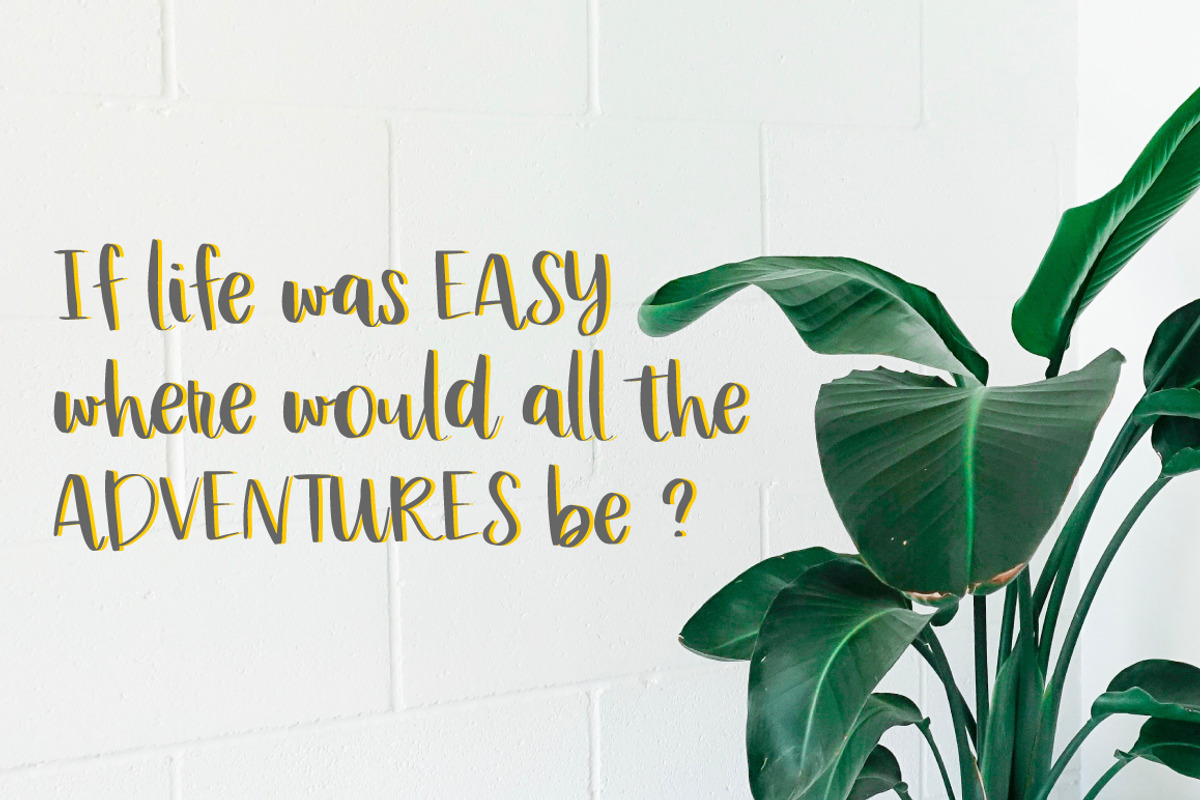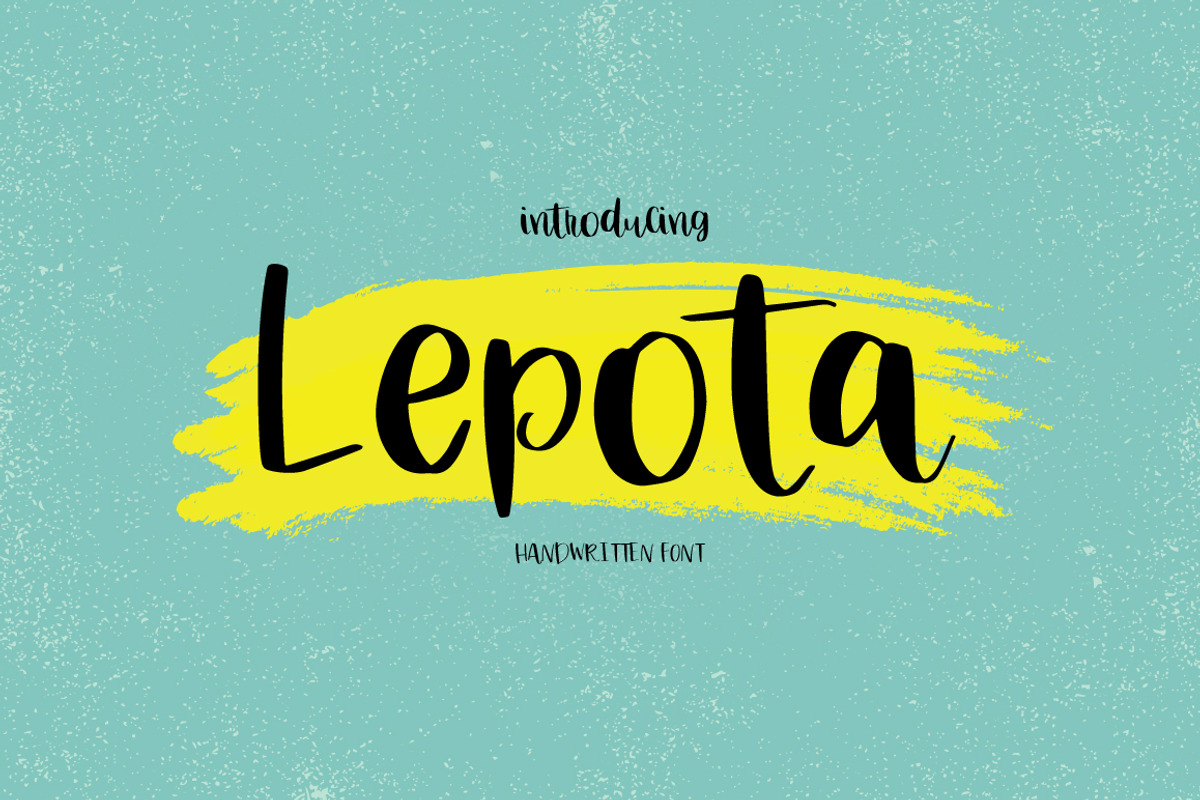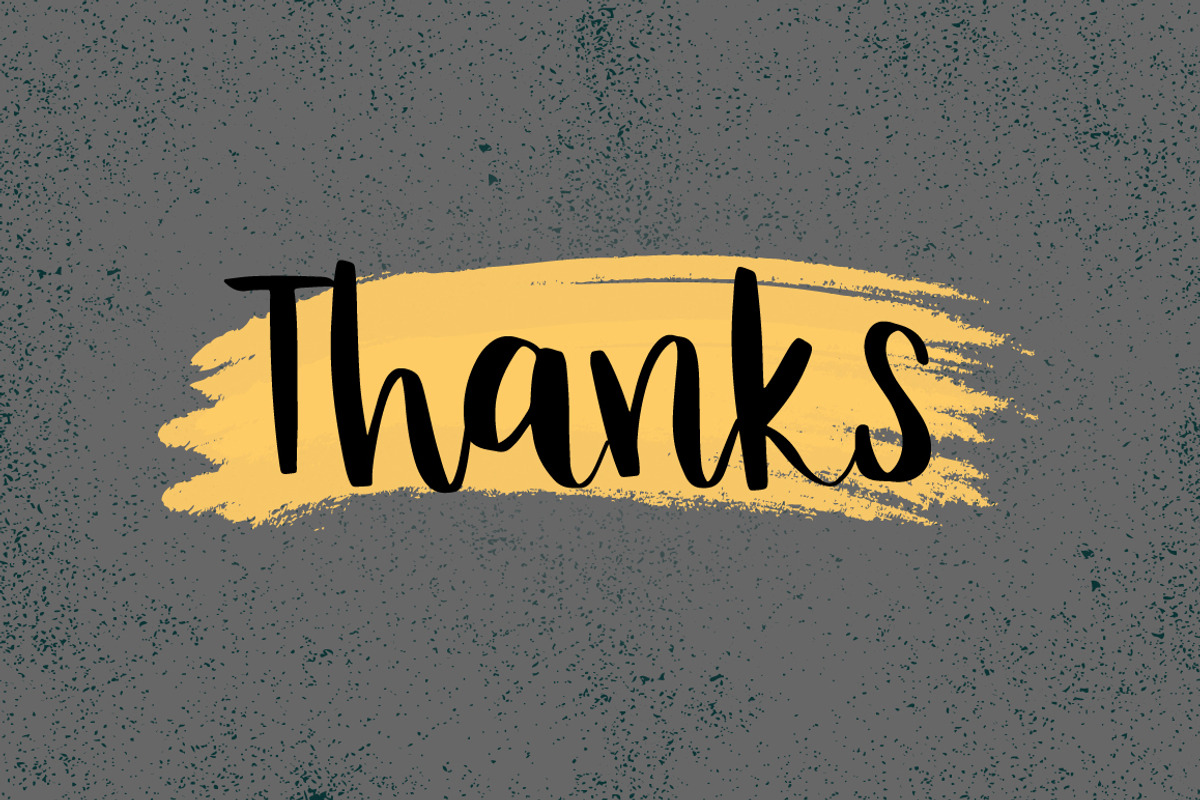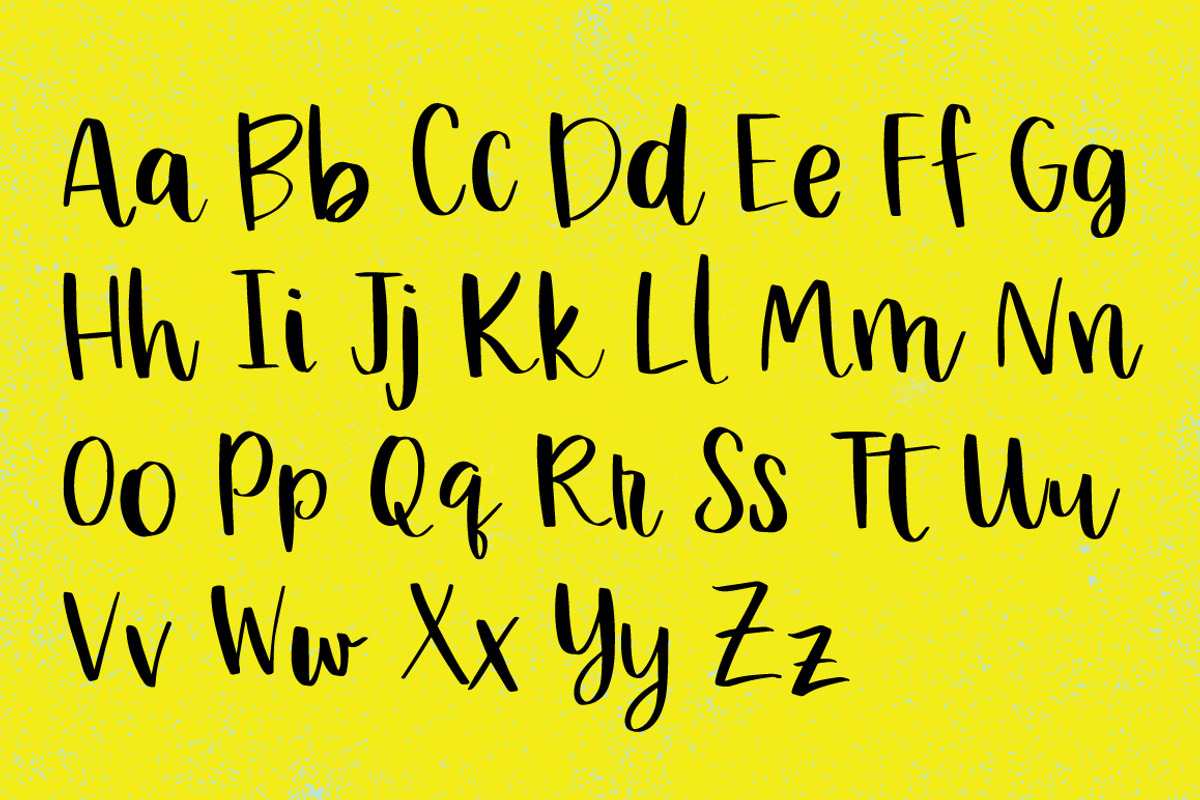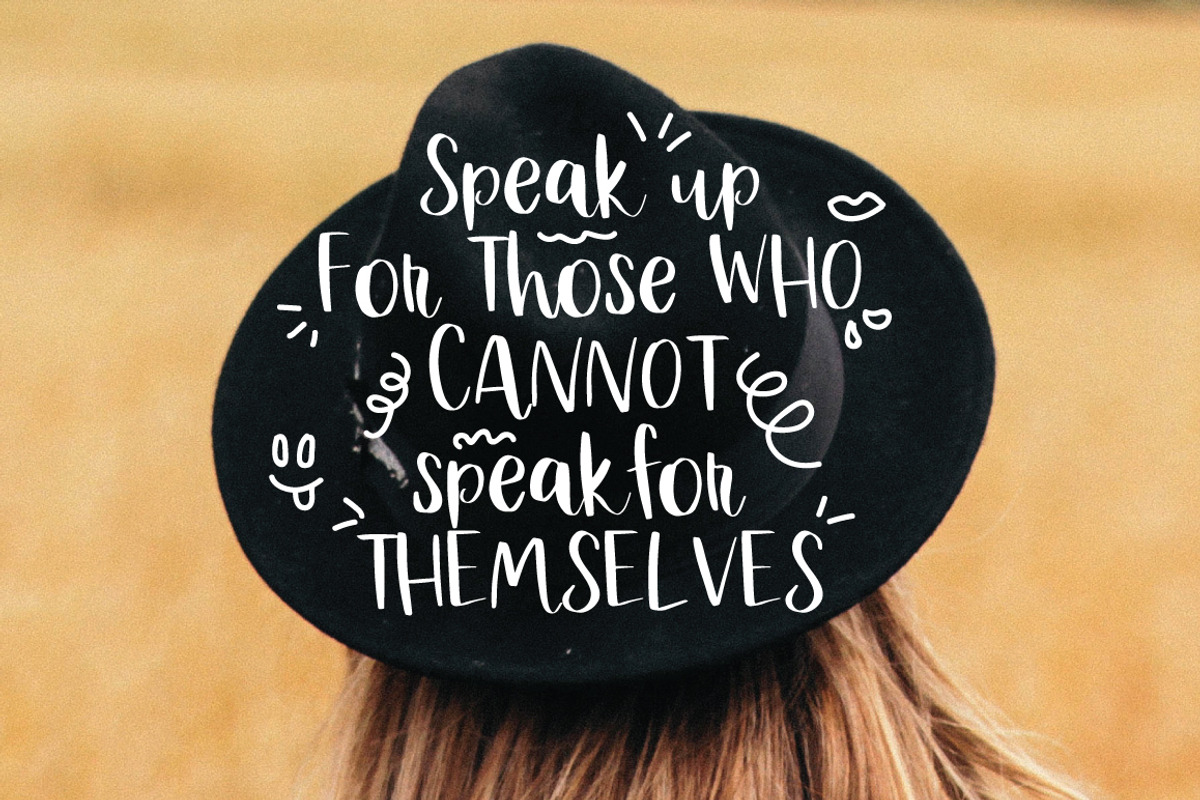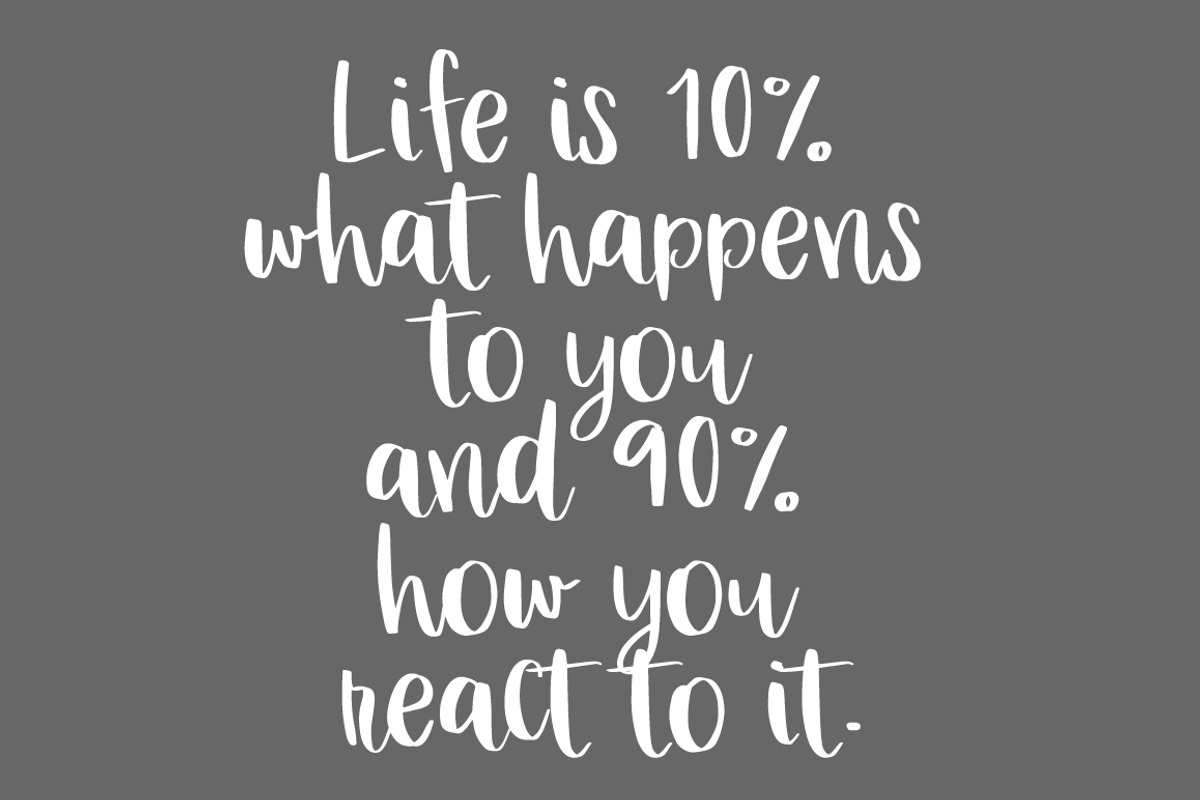
Lepota | Handwritten font
it's handwritten script font.
This font a perfect for every project, wedding invitation or your blog. Also with their help, you can create a logo or beautiful frame for your home. Or just use for your small business, book covers, stationery and more.
Why Lepota | Handwritten font is worth a look
Lepota | Handwritten font by Artstudio fits naturally into Branding, posters, packaging, typography.